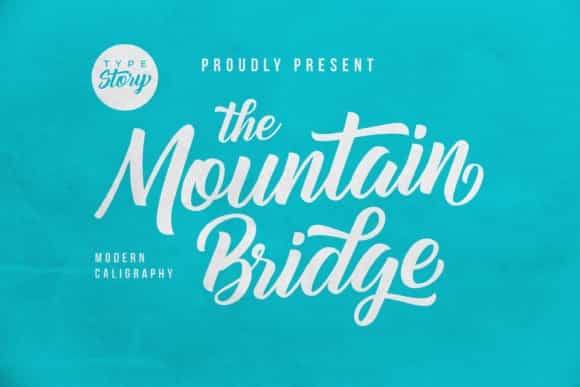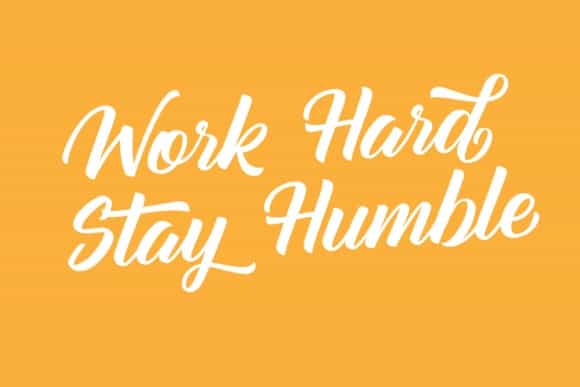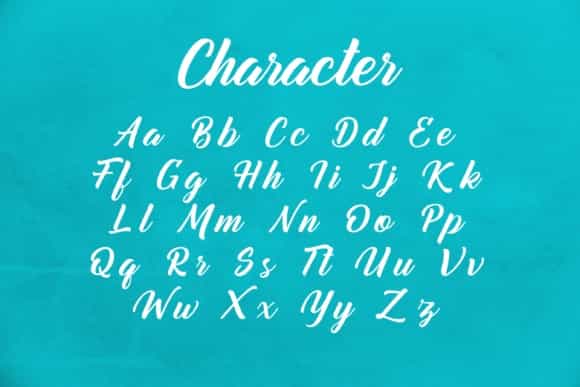
Mountain Bridge is a bold script handwriting font, created by hand in a dedicated effort to make it readers’ favorite. Its casual look gives it an earthy, easy-to-read feel and yes, one that will look quite at home in all sorts of different settings.